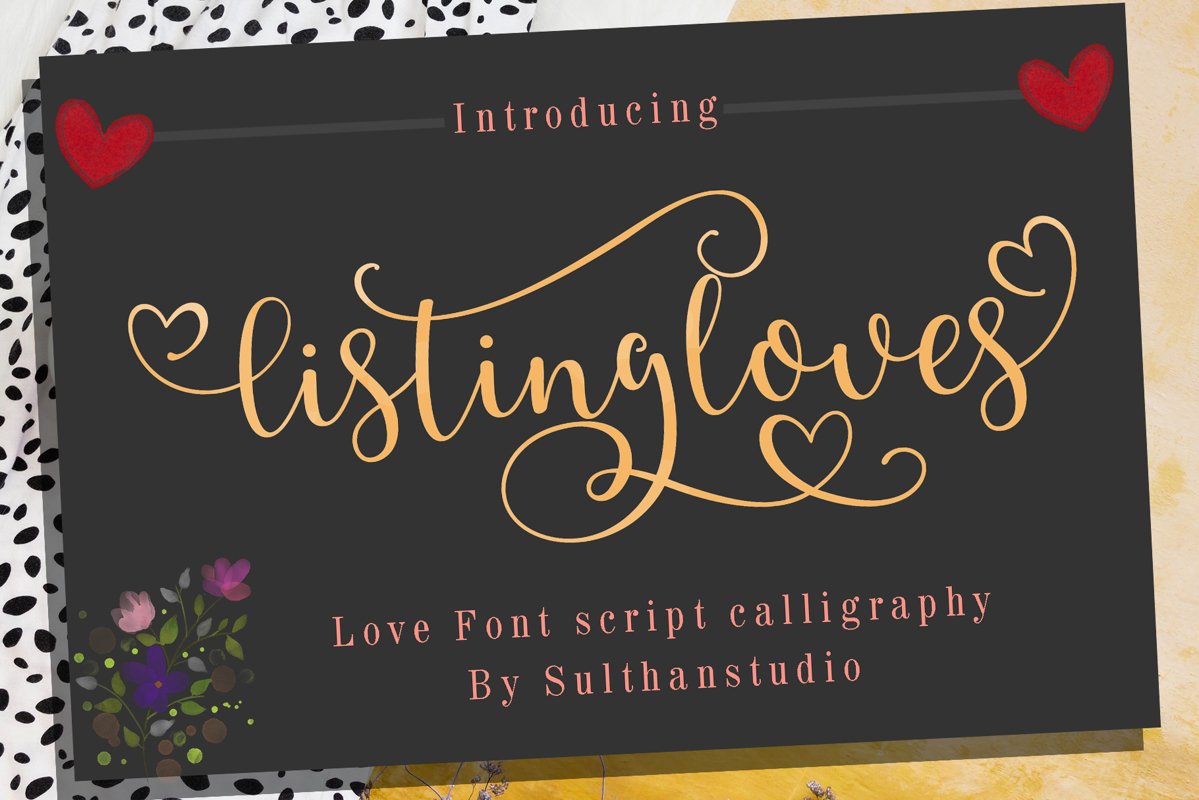
Listing loves - new, fresh, funny, interesting, cute calligraphy font with two cute hearts that can be connected. It is suitable for greeting cards, branding materials, business cards, quotes, posters, and more!